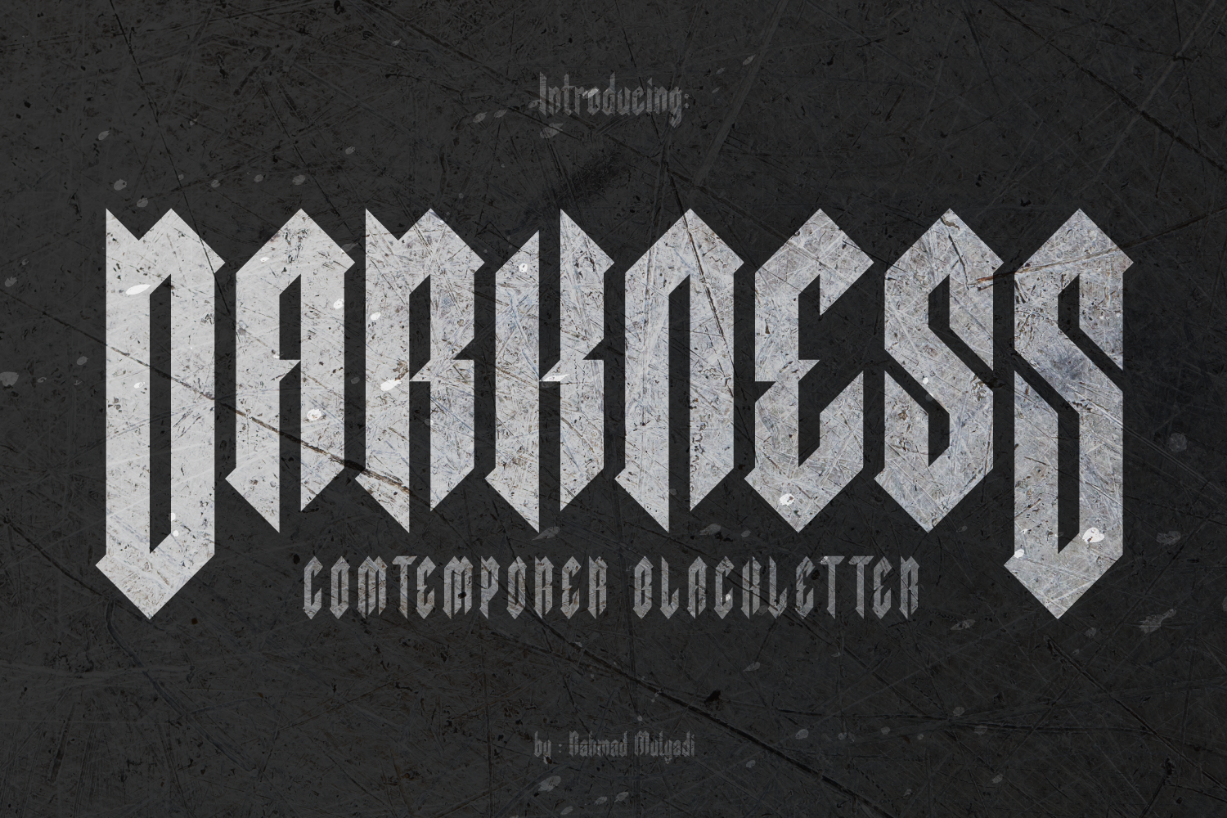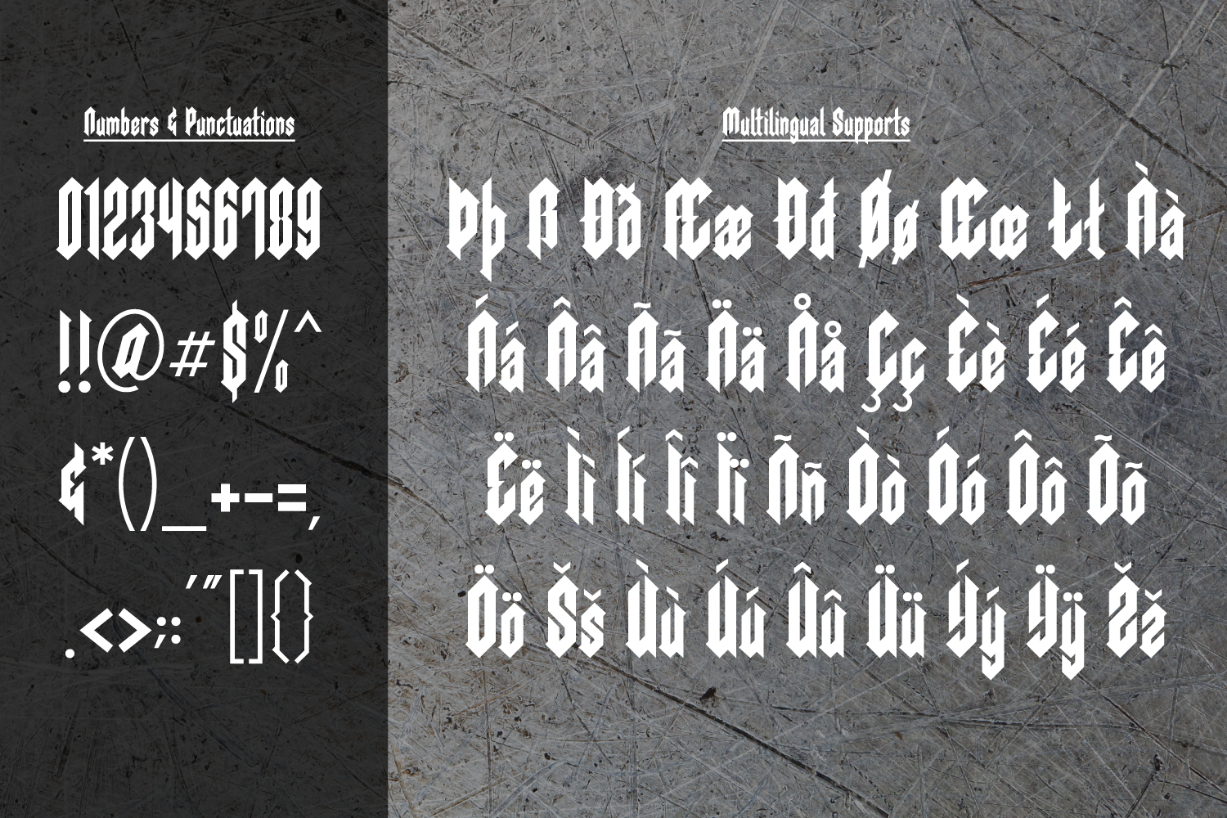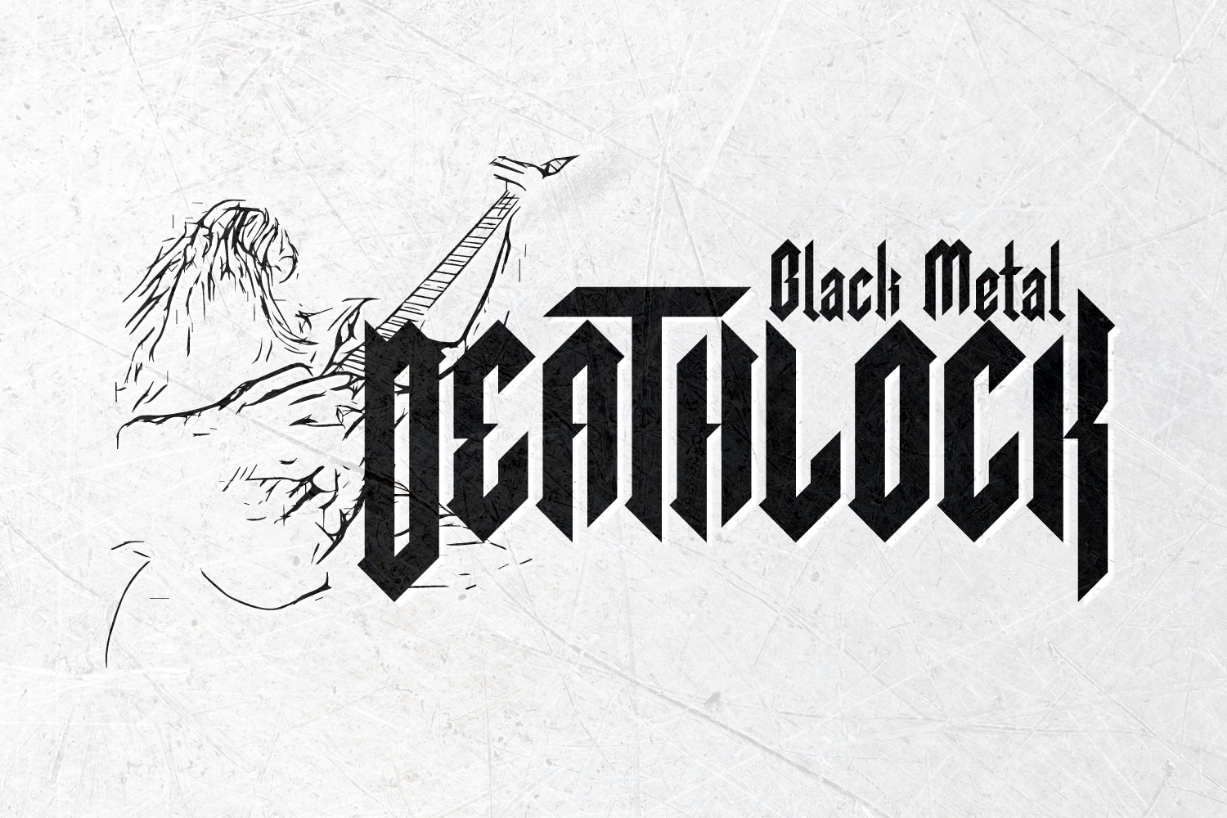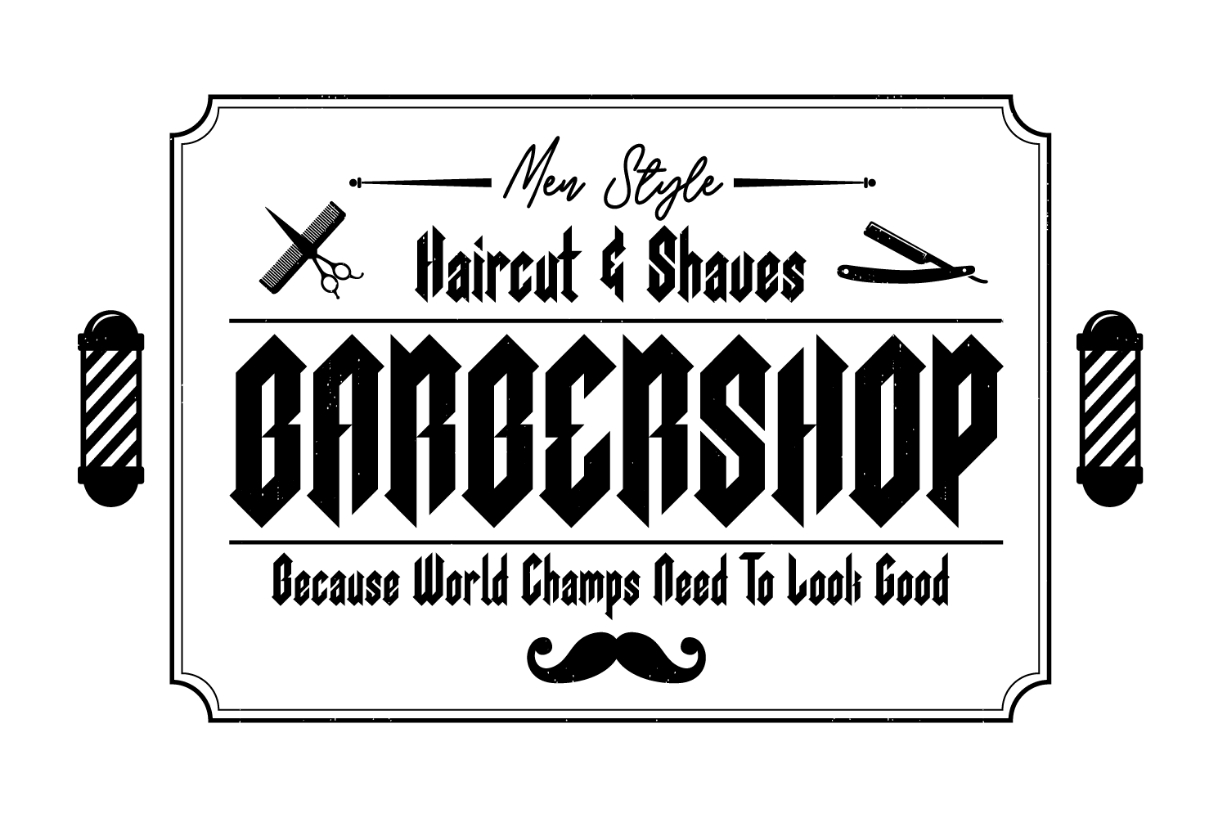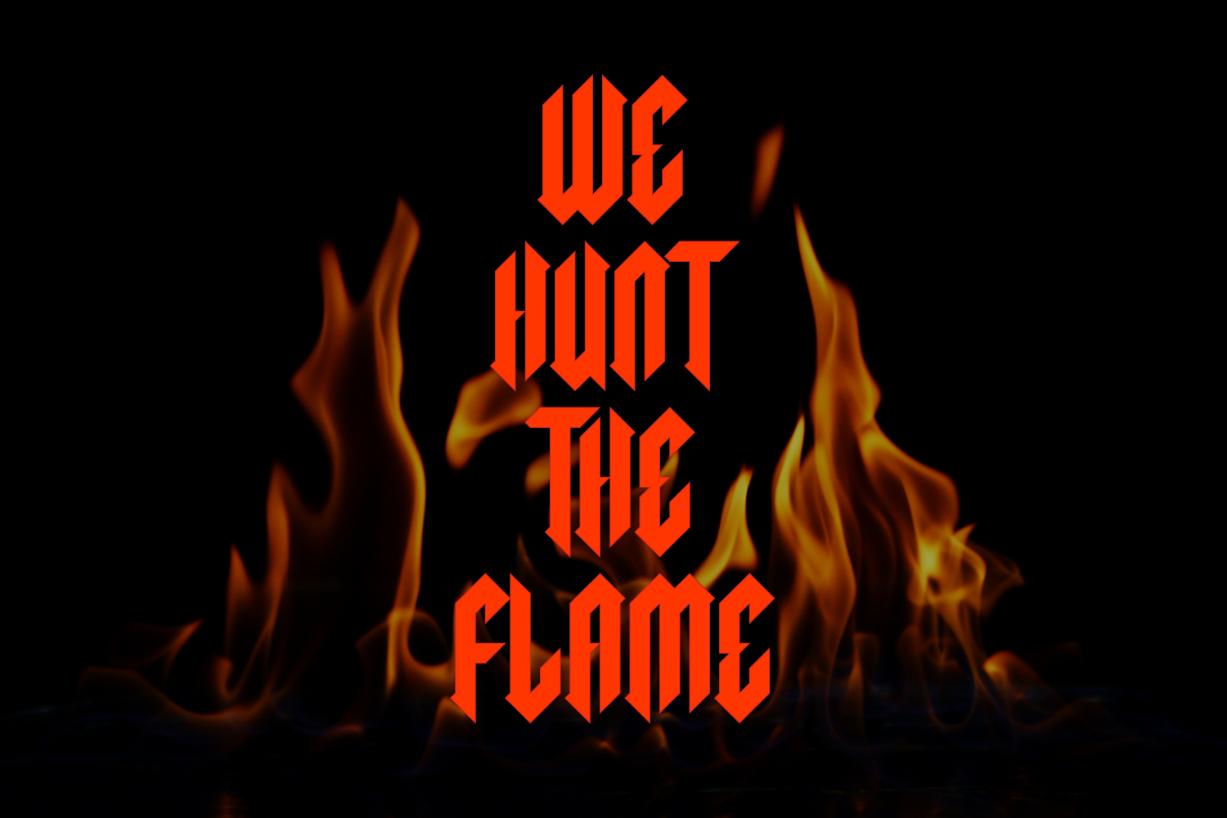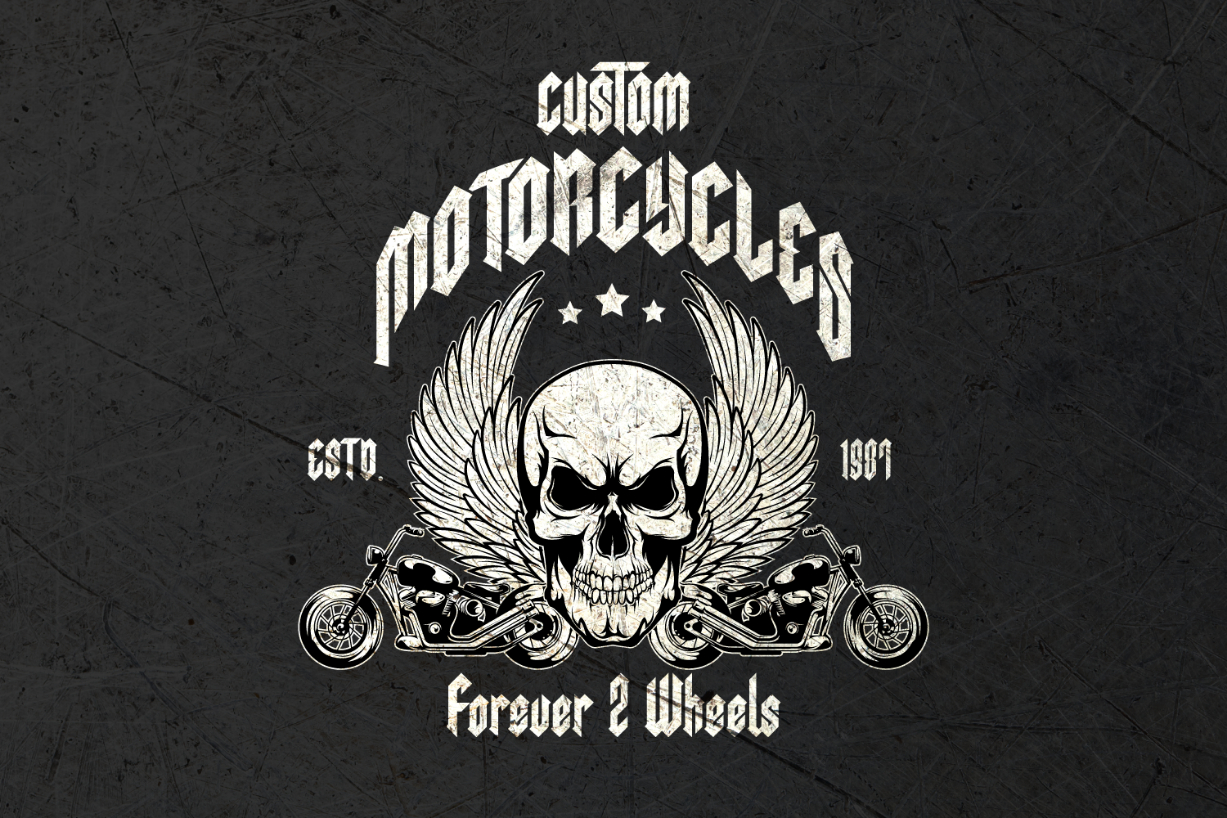
Darkness Font
About Darkness Font
Darkness is a simple blackletter font with a contemporary feel. Take your designs to the next level with this original typeface!